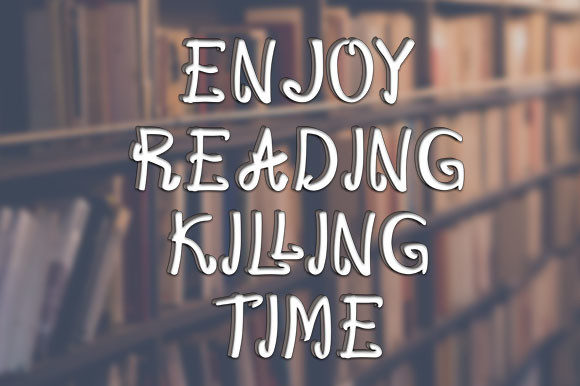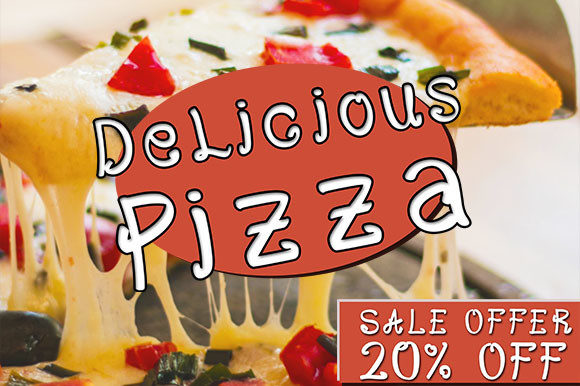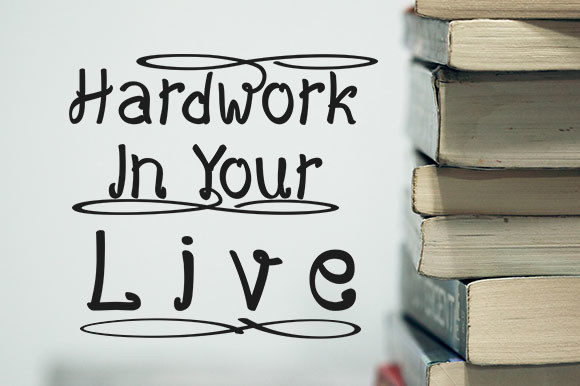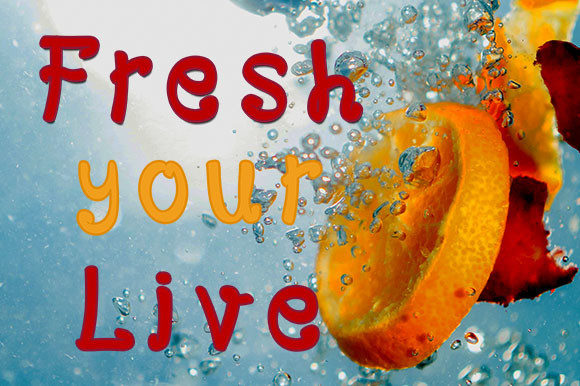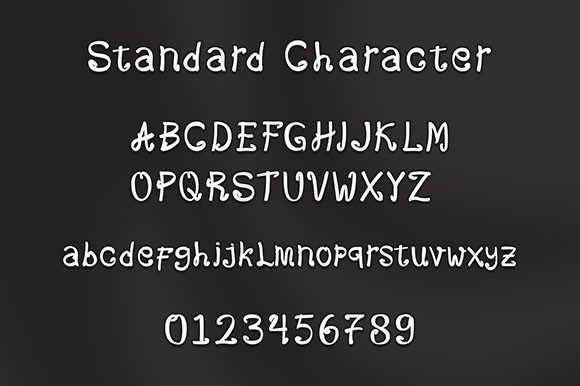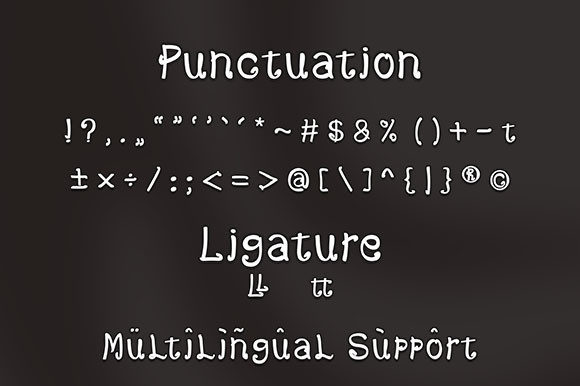
Discover the Unique Charm of the Attazack Font
Have you ever been working on a design project, pouring your heart and soul into it, and suddenly, you just can’t seem to find the right font to bring it all together? That’s exactly where the Attazack Font comes in – a game-changer for designers looking to add a touch of personality to their work.
The Attazack Font is a beautifully crafted, handwritten font that’s perfect for adding a casual yet interesting flair to your designs. With its balanced and varied design, this font is not too thin and not too thick, making it versatile and easy to work with. Plus, its PUA encoding means you can access all of the glyphs and swashes with ease, giving you endless possibilities for creative expression.
Whether you’re a graphic designer, a digital artist, or a writer, the Attazack Font is a valuable addition to your toolkit. Its unique charm and versatility make it an ideal choice for a wide range of projects, from social media graphics to website headers and beyond.
Key Features of Attazack Font
- Font Family: Attazack comes in multiple font styles, including Regular, Bold, Italic, and Bold Italic.
- Unique Characteristics: Attazack Font features a unique blend of modern and vintage elements, with intricate details and ornate flourishes that add a touch of elegance and sophistication.
Attazack Font Review
Overall, I think the Attazack Font is a decent addition to any designer’s toolkit. ✨ It’s got a unique, quirky feel that’s perfect for adding some visual interest to a project.
- The Attazack Font is incredibly versatile, working well for both digital and print projects.
- The font’s quirky, handwritten feel makes it perfect for adding a touch of personality to a brand or project.
- The font is also highly customizable, allowing designers to adjust the weight, spacing, and other attributes to suit their needs.
While the Attazack Font has its strengths, there are a few limitations that designers should be aware of. ⚠️
- The font’s unique feel can sometimes come across as inconsistent or difficult to read, particularly at smaller font sizes.
- The font’s customization options can be overwhelming for designers who are new to working with fonts.
Overall, I think the Attazack Font is a solid choice for designers who want to add a unique touch to their projects. While it may not be the best choice for every project, it’s definitely worth considering for those looking to add some personality to their design.
The Attazack font is ideal for creating bold, eye-catching headlines and titles. Use it to add a touch of sophistication and elegance to your designs.